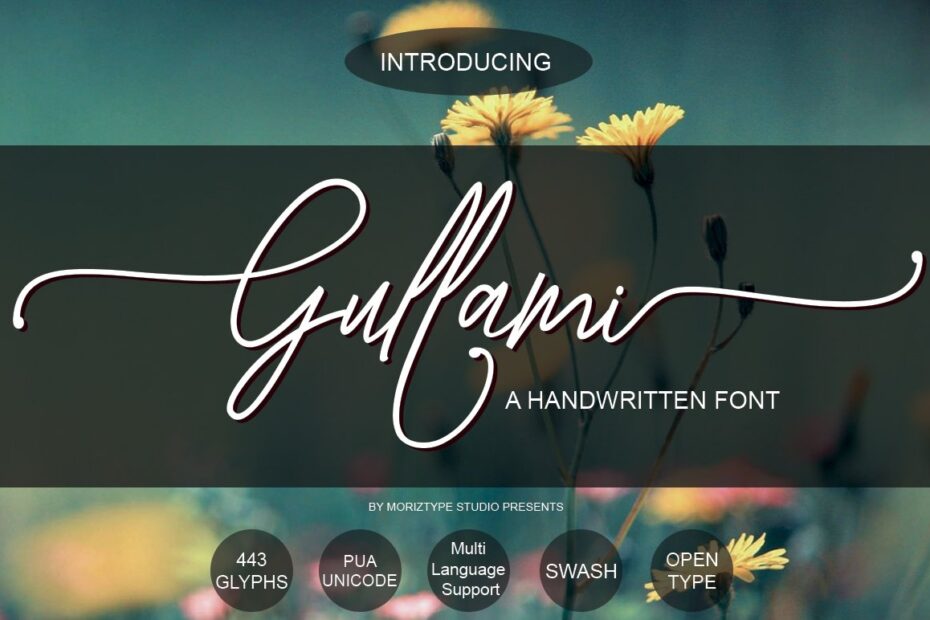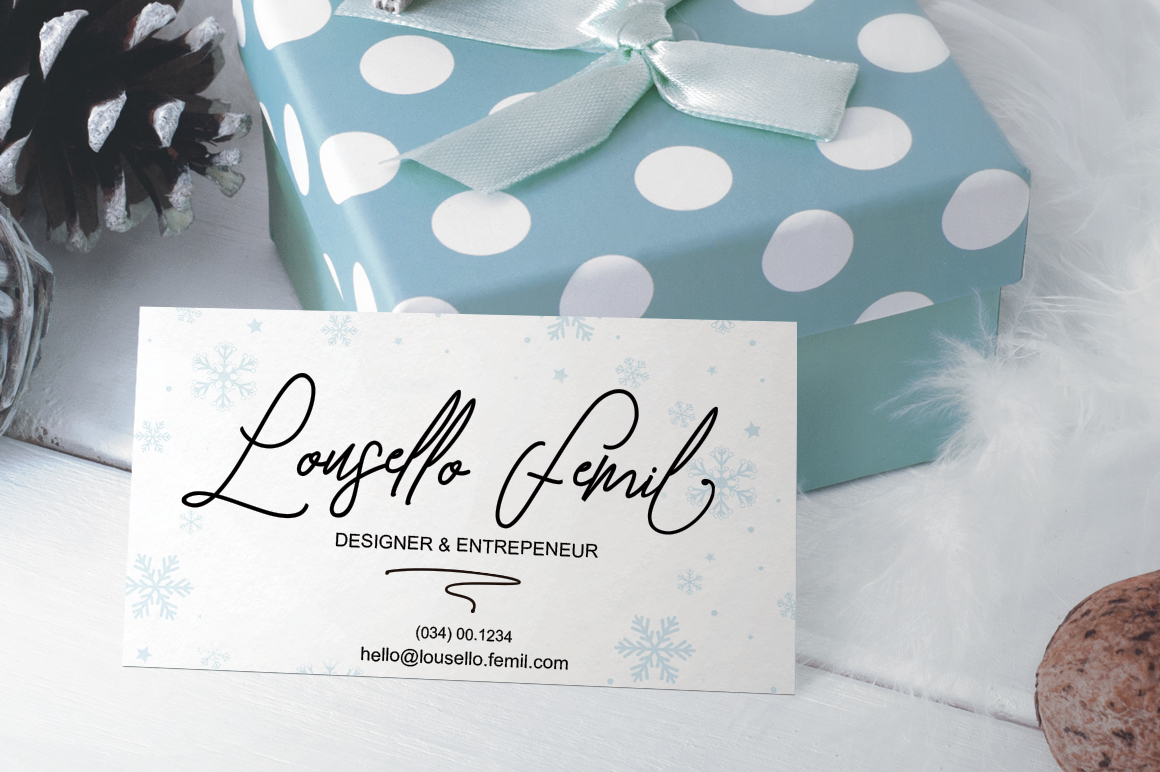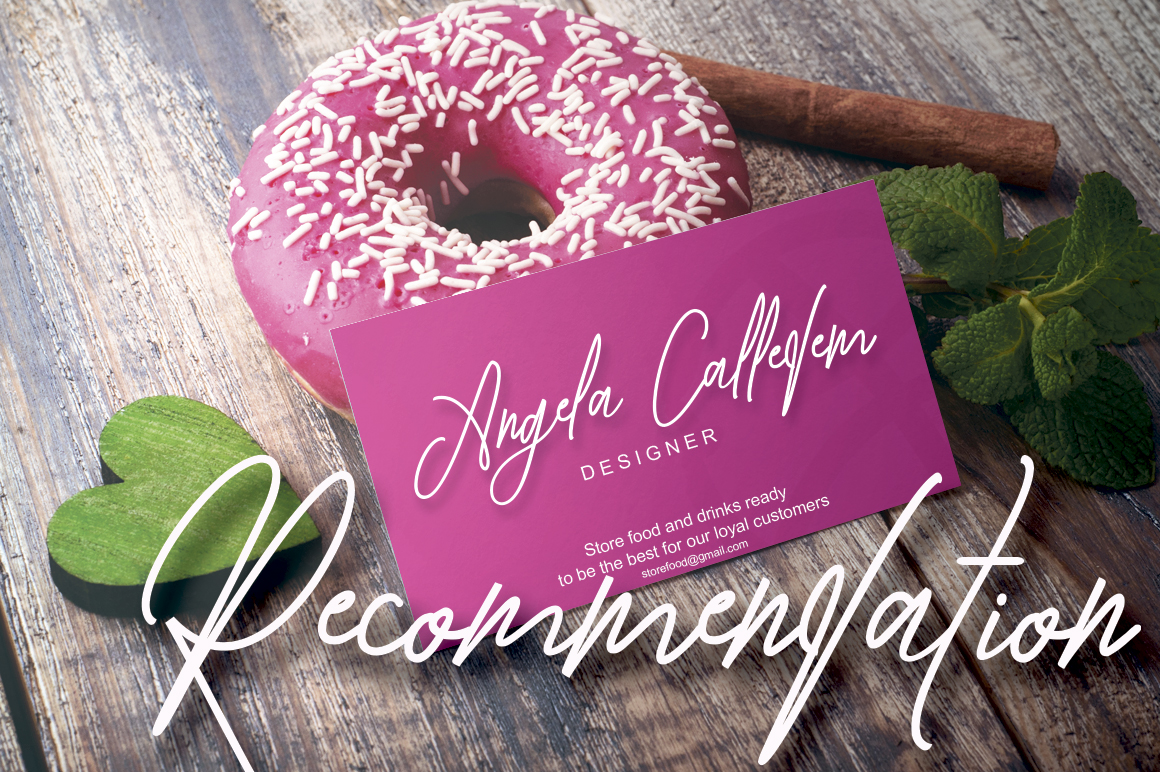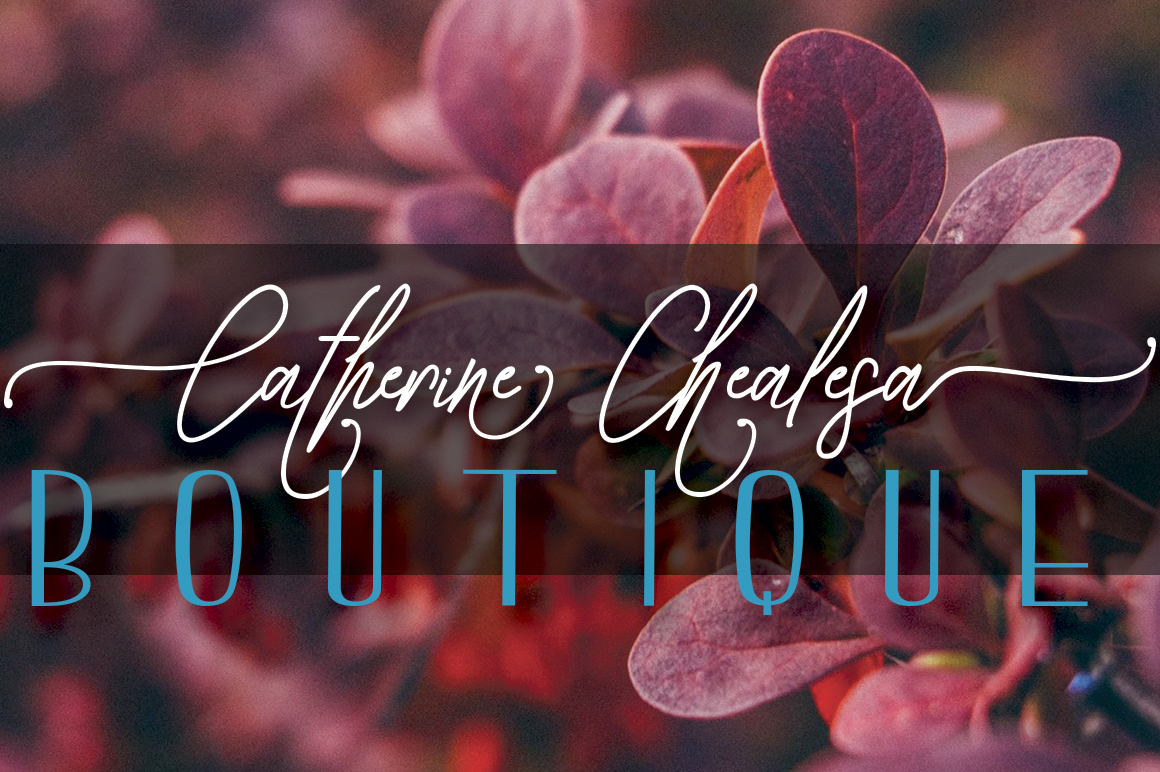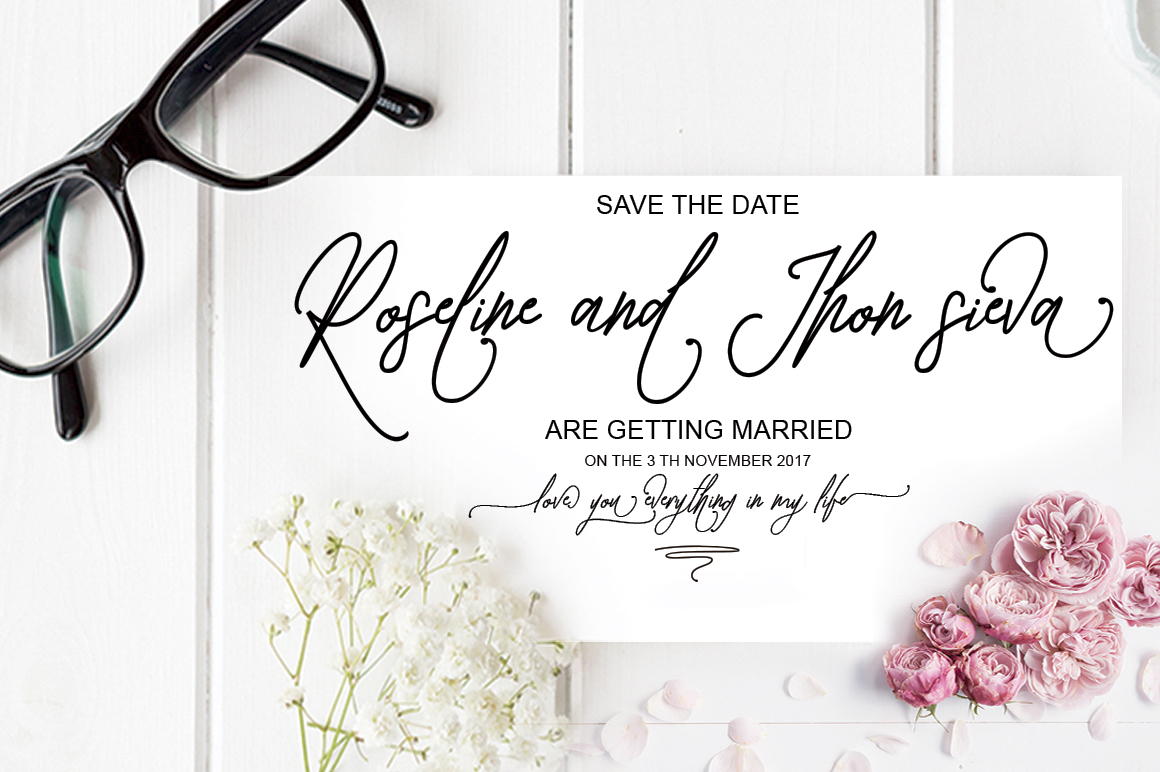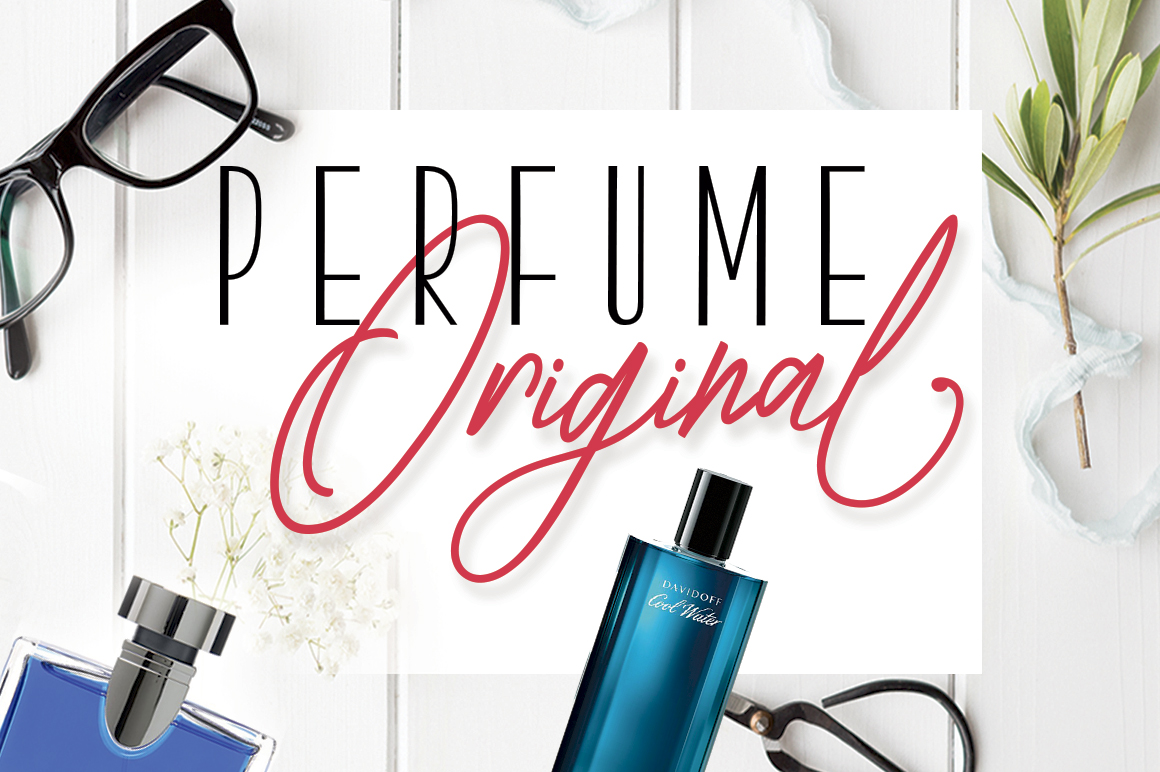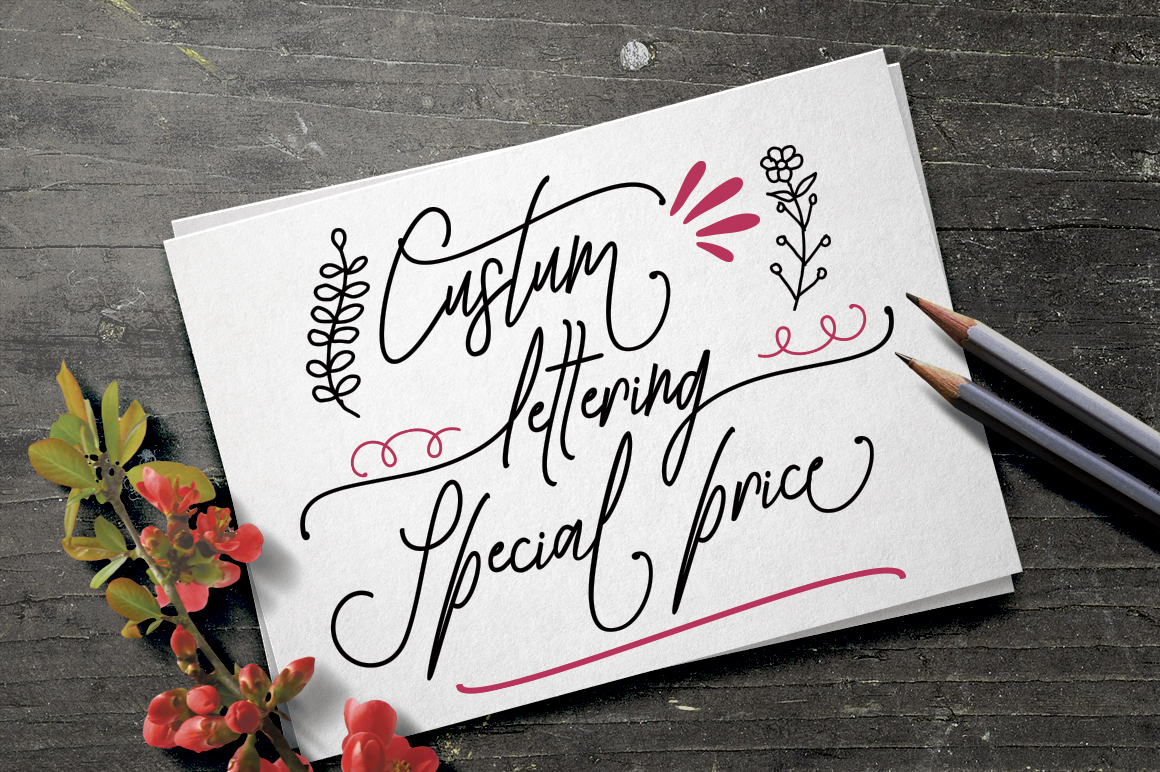
Unleashing the Charm of Handwritten Typography
Have you ever stumbled upon a beautiful handwritten note in a friend’s journal, and instantly felt a connection to the person who wrote it? That’s the magic of handwritten typography, and it’s a trend that’s here to stay. As designers, we’re always on the lookout for fonts that can evoke a sense of personality and charm, and that’s where the Gullami Rice Script Font comes in.
This original handwriting script is a breath of fresh air in the world of typography, offering a unique and natural look that’s perfect for decorative and display designs. With over 400 glyph options, the Gullami Rice Script Font is incredibly versatile, making it a valuable asset for designers who want to add a touch of elegance to their projects.
Whether you’re working on a wedding invitation, a branding project, or a creative campaign, the Gullami Rice Script Font is sure to impress. Its adaptability and charm make it a must-have for designers who want to stand out from the crowd and create truly memorable designs.
Gullami Rice Script Font Key Features
- Font Style: A beautiful and elegant script font, perfect for creating a warm and inviting atmosphere.
- Unique Characteristics: Features a unique, hand-drawn feel with subtle flourishes and connections between letters, adding a touch of personality to any design.
Gullami Rice Script Font Review
Gullami Rice Script Font is an elegant, cursive script font that I’ve been experimenting with for my design projects. Here’s my honest review.
- The font’s curves and flourishes are beautifully crafted, giving it a luxurious feel.
- It’s perfect for creating titles, headings, and other text elements that need a touch of sophistication.
- The font is highly customizable, allowing me to adjust the weight, size, and color to suit my design needs.
- The font’s readability can be an issue when used in smaller sizes or with complex text layouts.
- It may not be the best choice for body text or large blocks of text due to its ornate nature.
Overall, I’m impressed with Gullami Rice Script Font’s elegant design and versatility. While it has some limitations, it’s a great addition to my design toolkit for creating beautiful, high-end designs. I’d recommend it for projects that require a touch of luxury and sophistication.
The Gullami Rice Script Font is ideal for:
- Branding and logos.
- Event graphics and signage.
For optimal results, use the Gullami Rice Script Font in combination with a clean and minimalist design aesthetic.